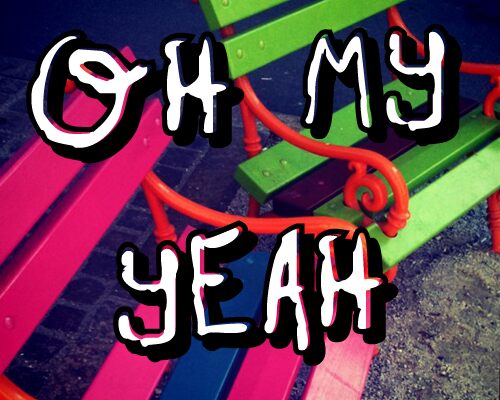
Oh My Oh La La Yeah #1
"Oh My Oh La La Yeah" is a playful and dynamic brush font created by designer Fred of the 28fonts studio. Exuding a sense of energetic spontaneity, this font features bold, expressive strokes that convey a carefree and whimsical aesthetic. Its organic, handwritten style lends itself well to a variety of design applications, from vibrant event posters and packaging to vintage-inspired branding and editorial layouts. The font's distinctive character and versatility make it an appealing choice for designers seeking to infuse their work with a touch of informal charm and personality.
Designers can leverage the font's unique qualities to craft eye-catching headers, impactful titles, and visually engaging typographic compositions. Its lively and expressive qualities make it particularly well-suited for designs that aim to evoke a sense of joy, creativity, and casual sophistication.
Oh my, what a peculiar name! It's actually quite normal - I was listening to Japanese rock'n'roll when the inspiration struck.